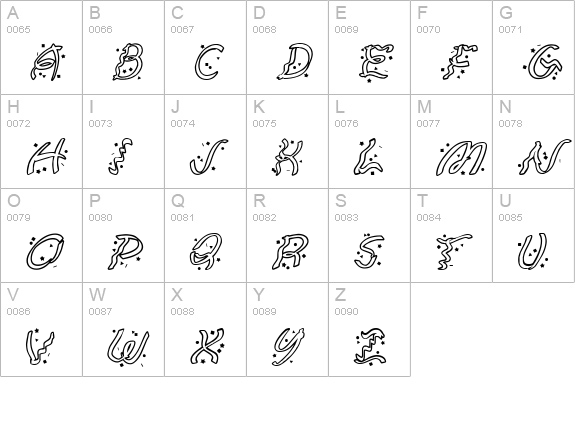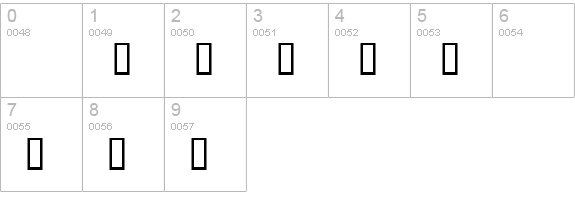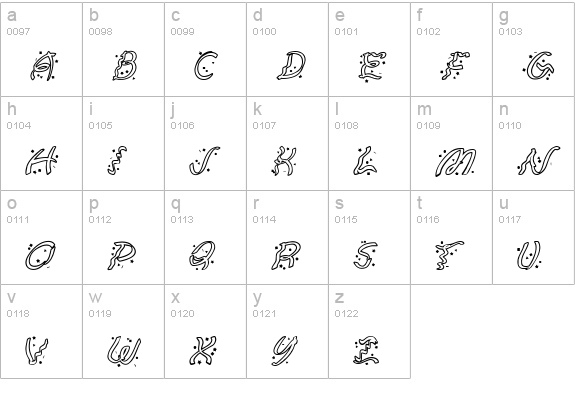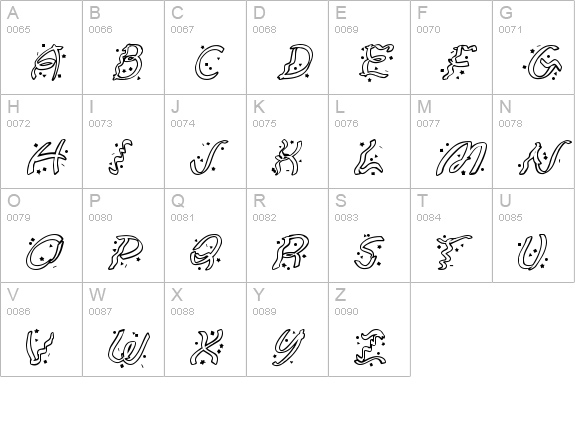
Ruban Extravaganza Font Details
Ruban Extravaganza font is a stunning display typeface that exudes elegance and sophistication. With its intricate ribbon-like design and stylish curves, this font is perfect for adding a touch of glamour to any project. Whether you're working on invitations, branding, or packaging, Ruban Extravaganza will make your text stand out in a luxurious way. What's even better is that Ruban Extravaganza font is completely free to download at FontsMarket.com. This means you can easily add this beautiful typeface to your font collection without any cost. Don't miss out on the opportunity to enhance your designs with the exquisite charm of Ruban Extravaganza font. Download it today and elevate your projects to new heights of sophistication.